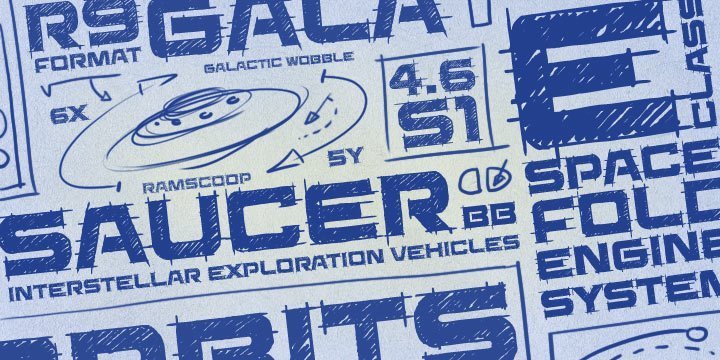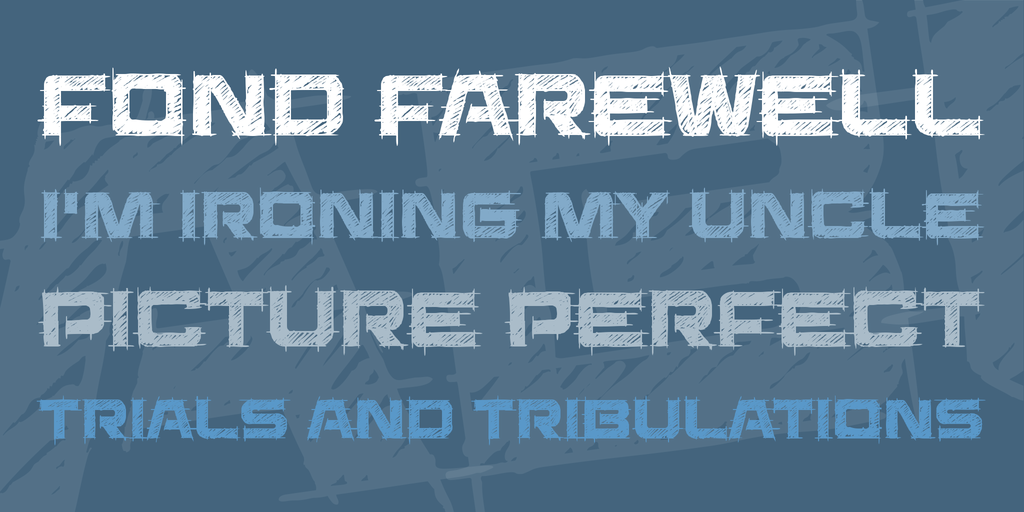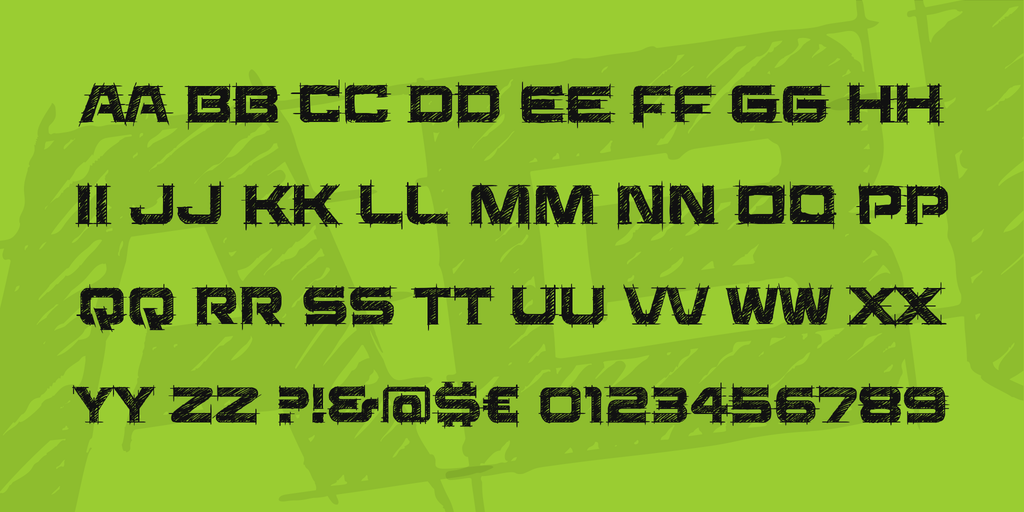
Saucer BB Font
About a year ago, I was messing with the idea of doing some design work on a sci-fi RPG and I penciled some ideas for space ships with hand lettering that would eventually turn into this font. I had originally intended to clean it up, but the sketchiness was so much more interesting, that I went with the rough look, guidelines included.